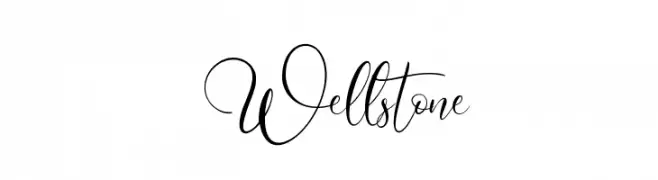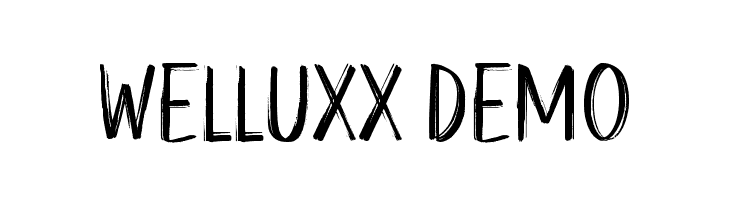
A playful, handwritten-style font with an oblique slant and consistent stroke thickness.
A versatile font with decorative and bold sans-serif styles.
An elegant script font with flowing, cursive letters and ornate flourishes.
A bold, expressive handwritten font with uneven strokes and dynamic energy.
A bold, decorative font with vintage and modern elements.
A lively script font with fluid, interconnected strokes and elegant loops.
A lively and flowing script font with a modern touch.
A bold, flowing script font with a modern and decorative style.
Western-themed pictogram font with detailed illustrations for each character.